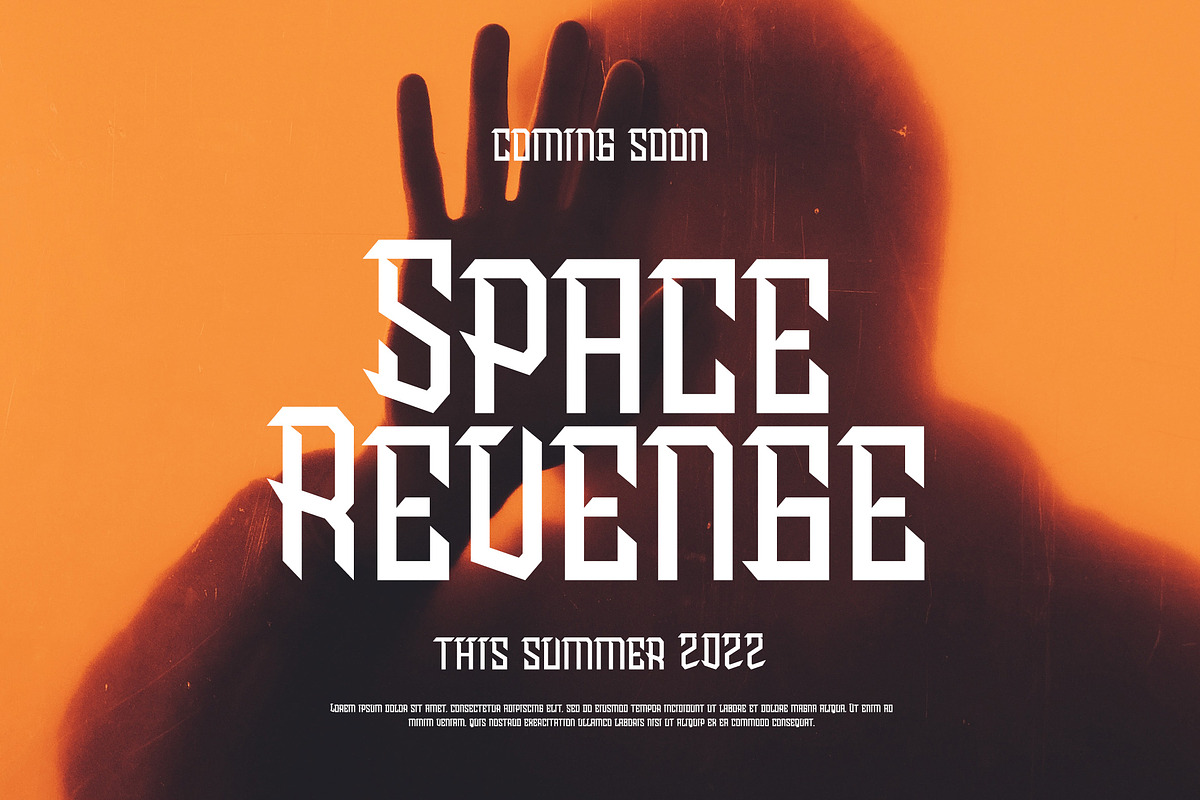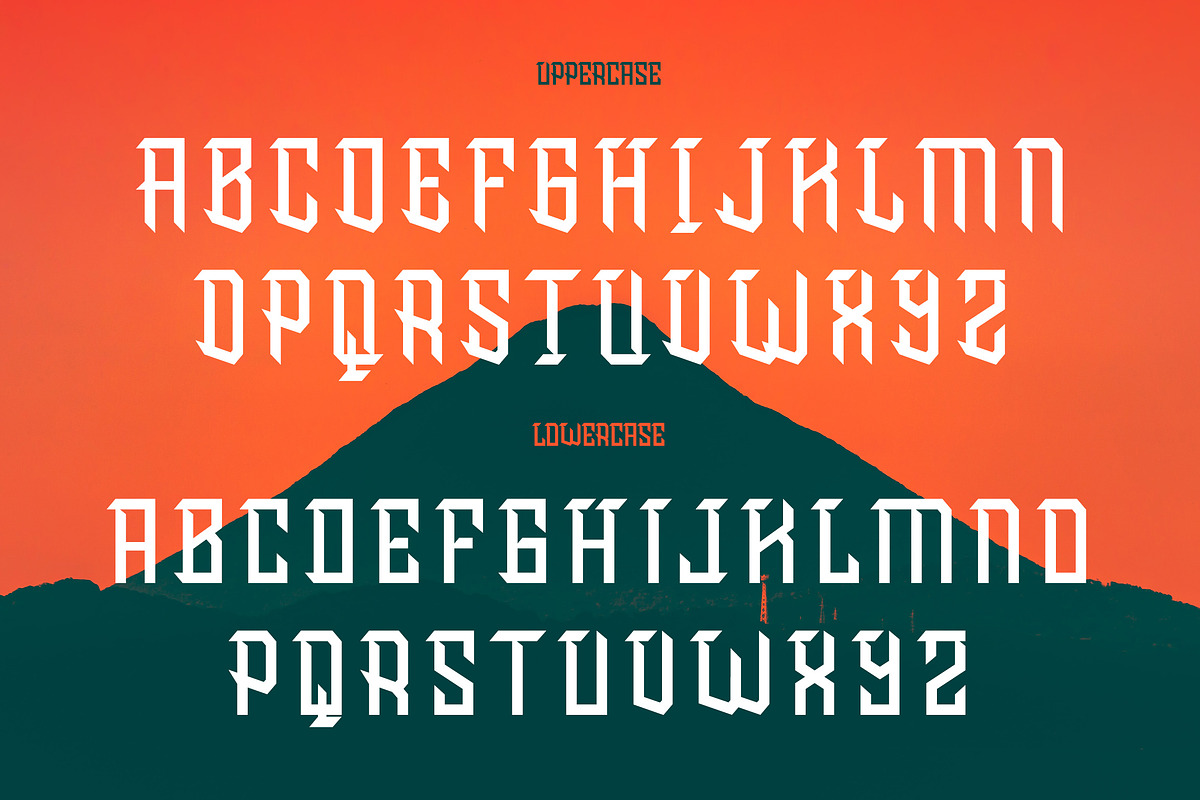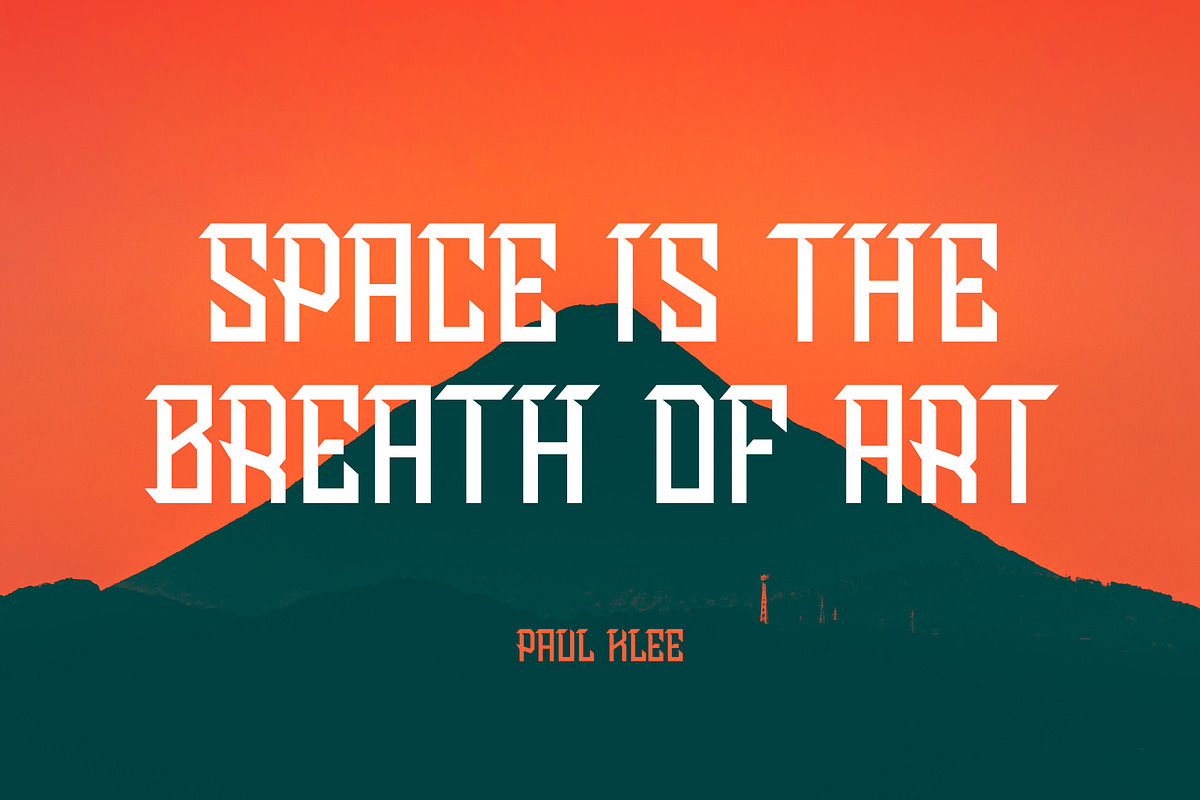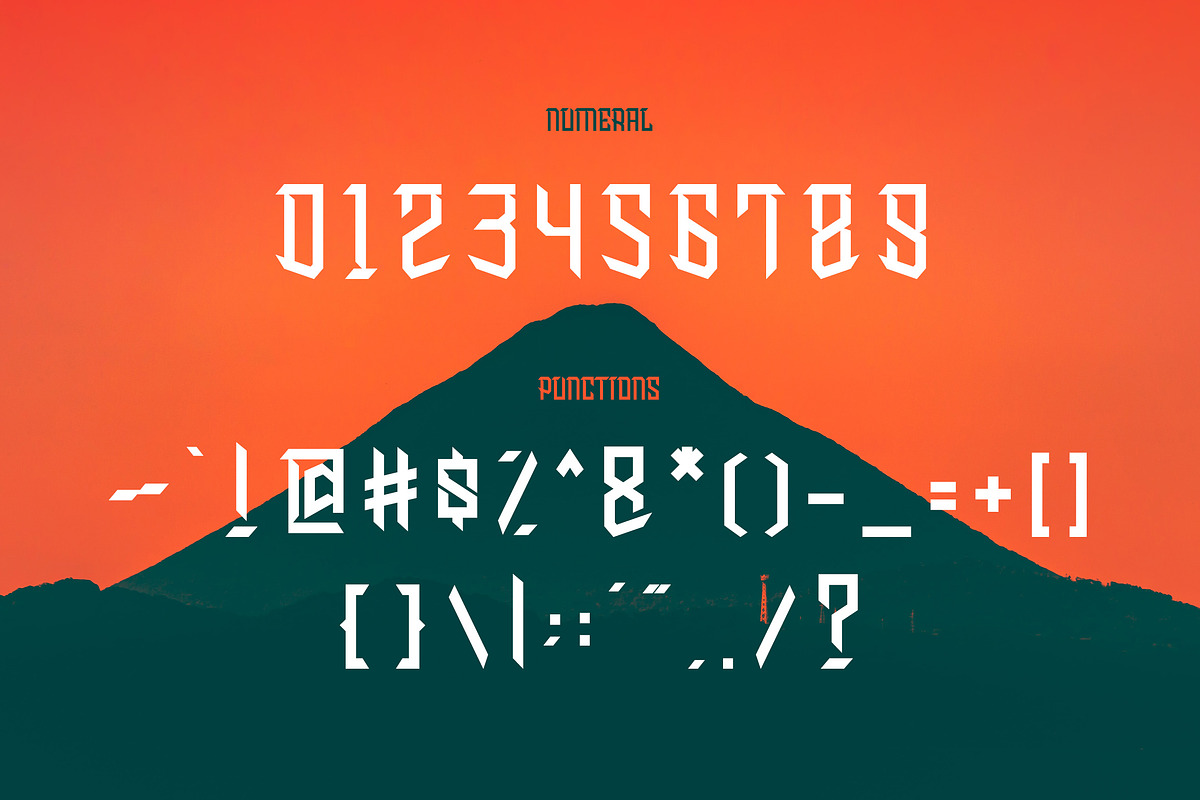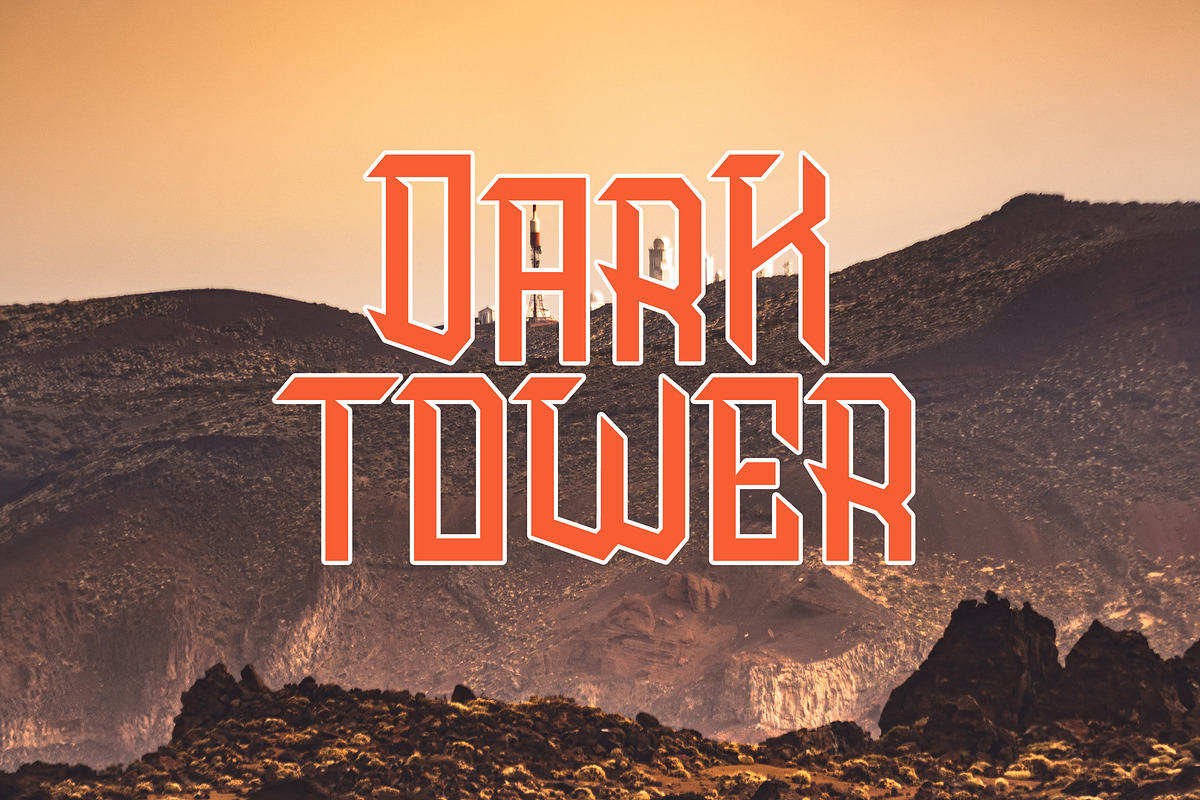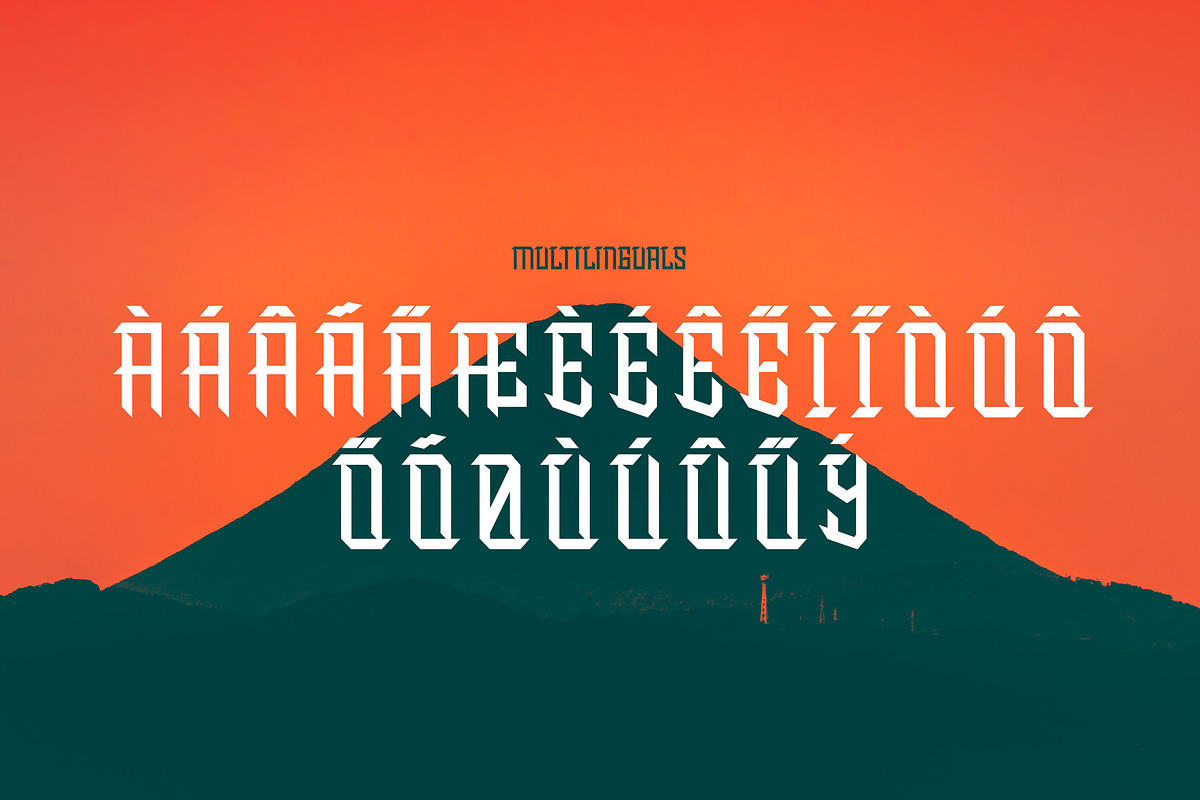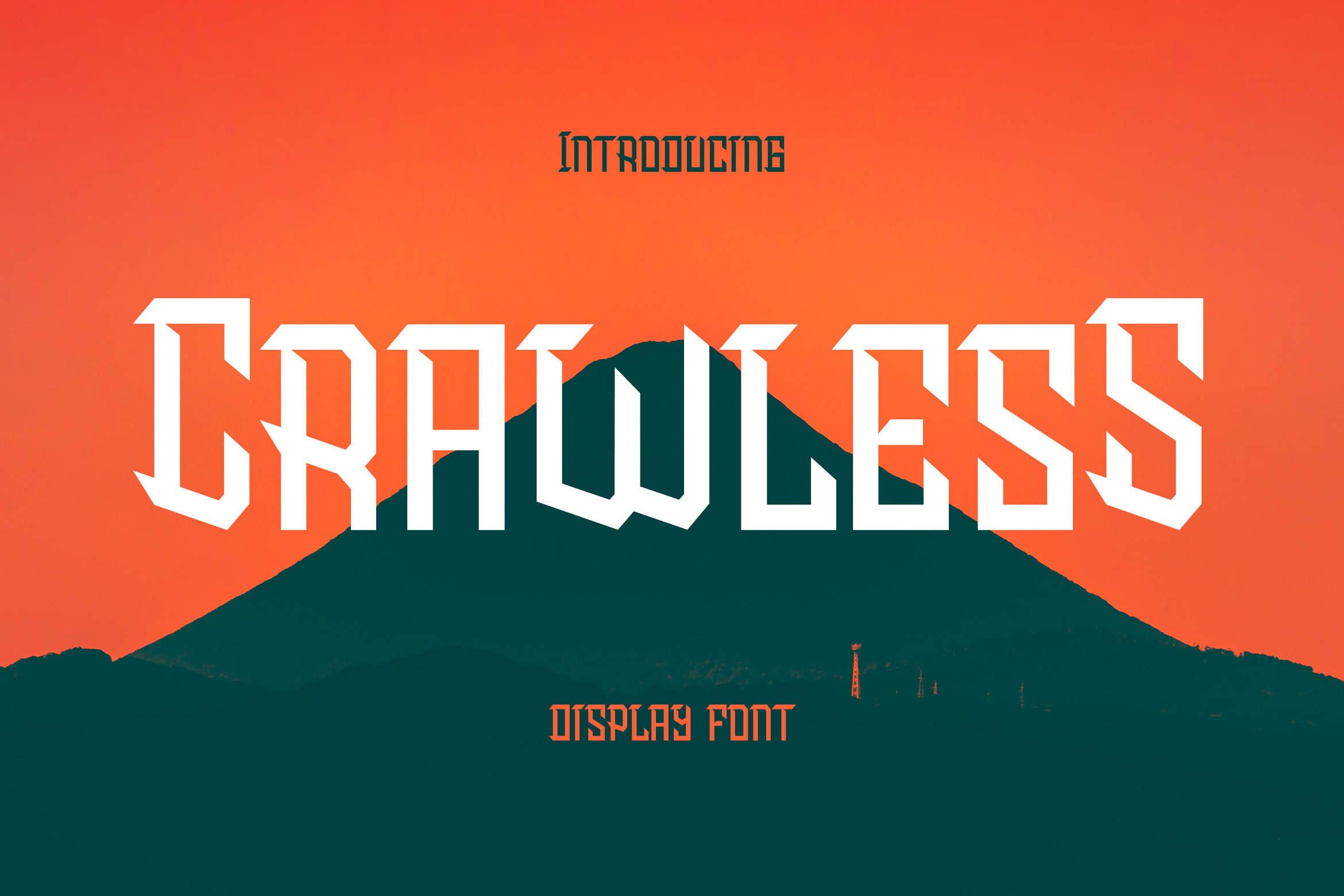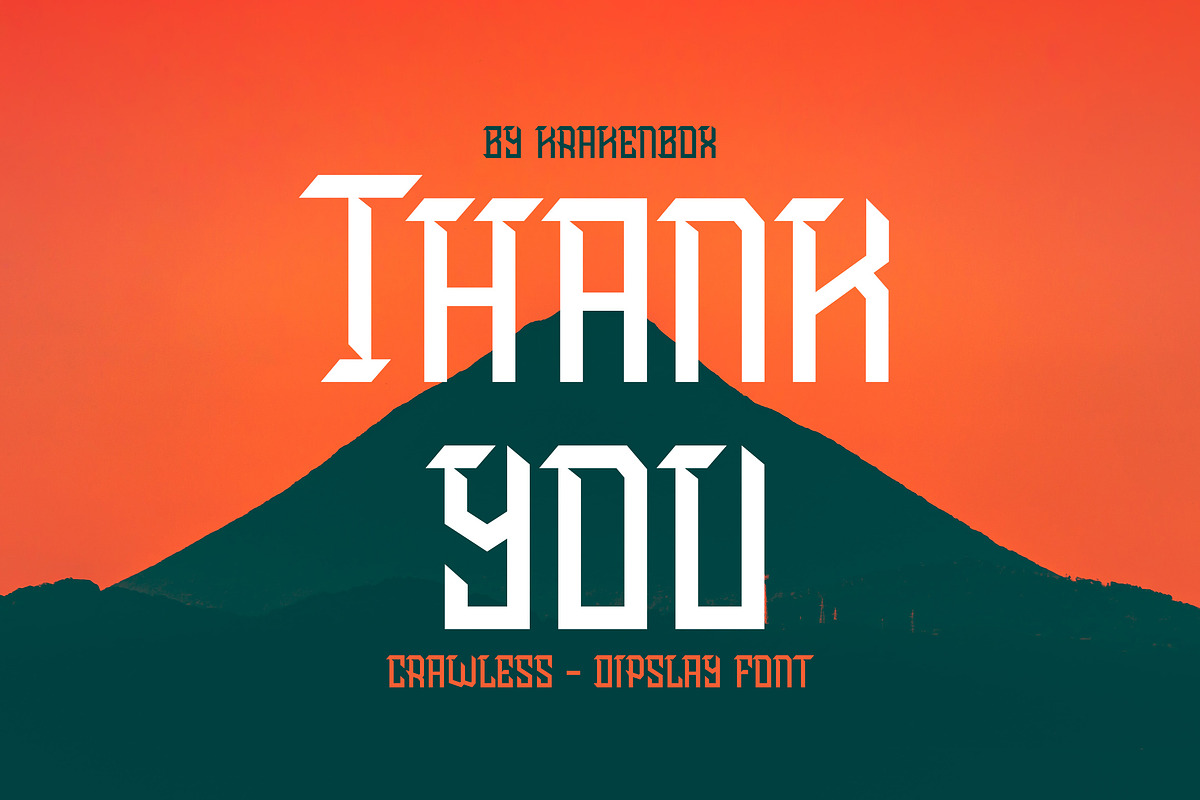
Crawless - Display Font
Crawless is Sharp Display Typeface. It has sci-fi, modern, futuristic, tech and cool. It’s a great font for sport, esport, fashion, apparel projects, signature, album cover, logo, branding, magazine, social media, & advertisements, but also works great for other projects.